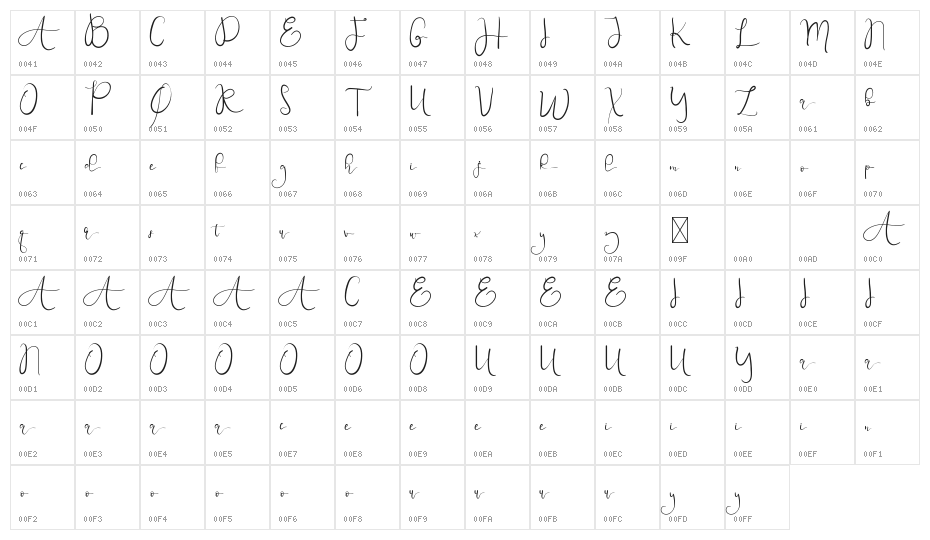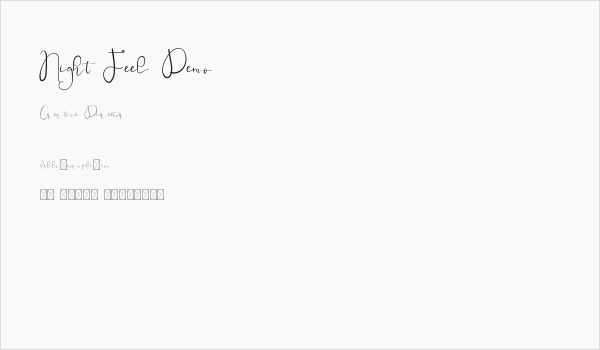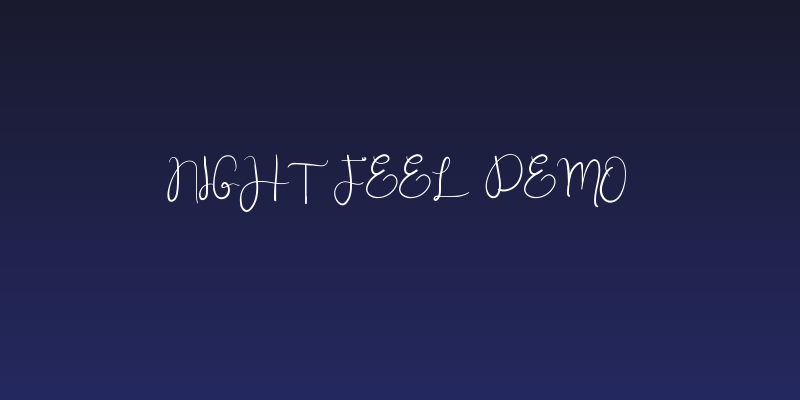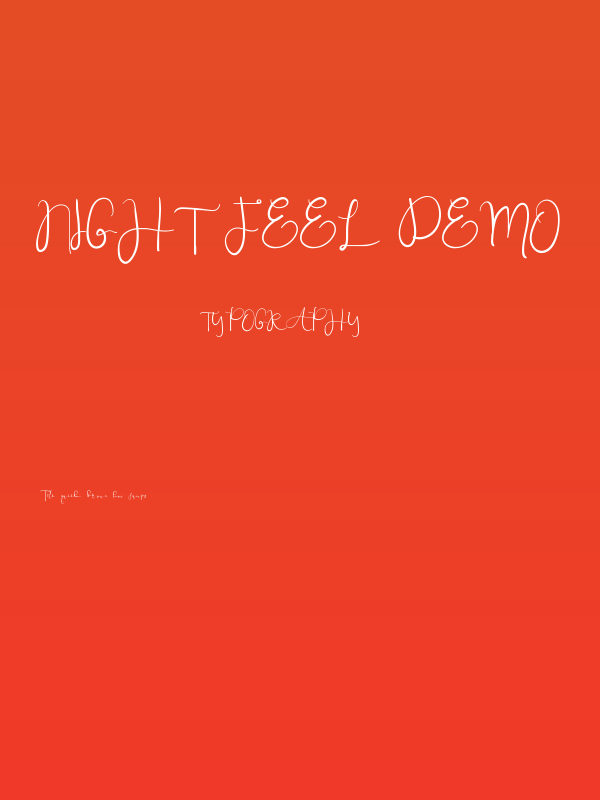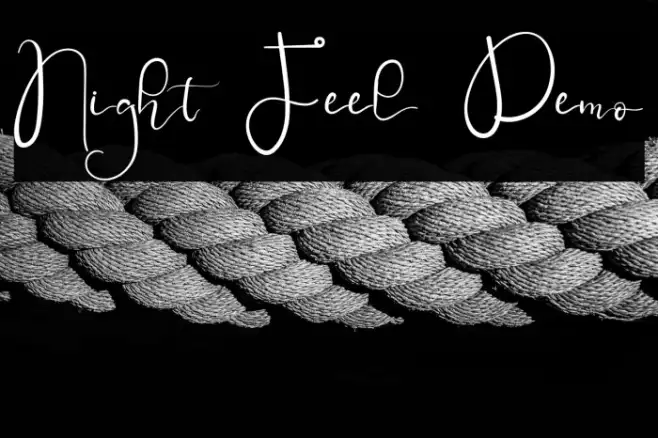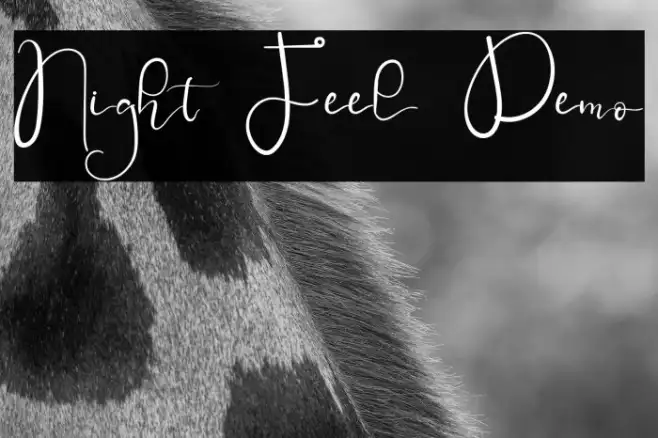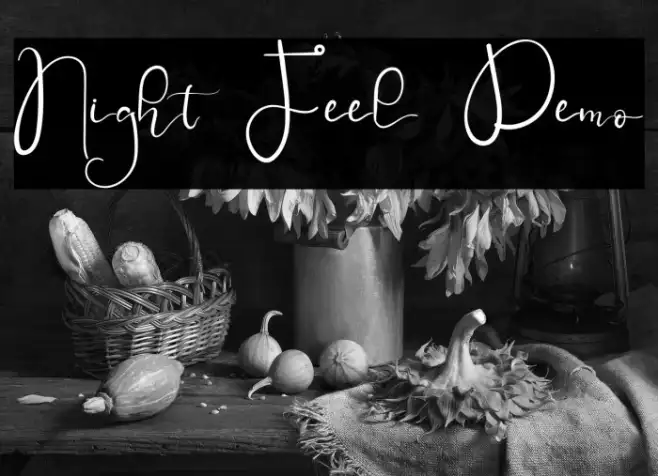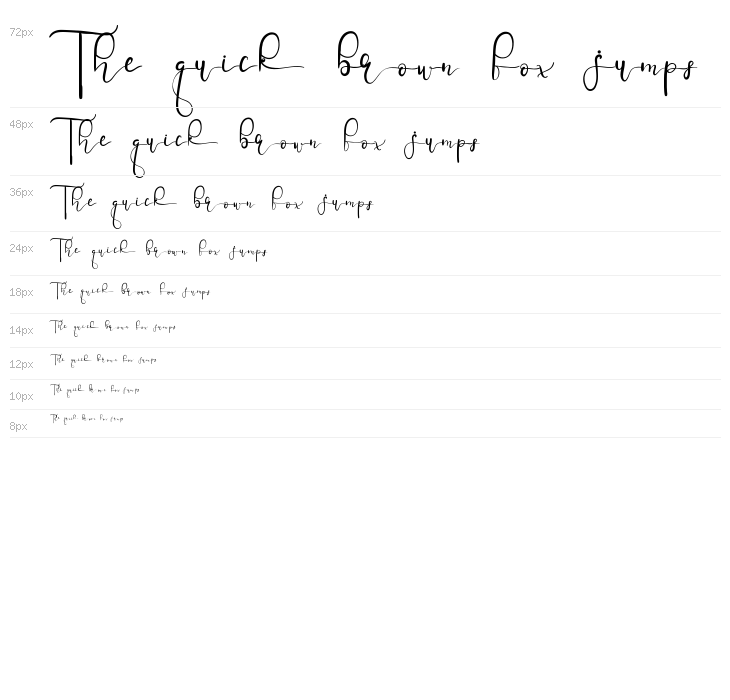
Night Feel Demo Font
Night Feel Demo Description
This font features an elegant and flowing script style, characterized by its cursive, handwritten appearance. The letters are connected with smooth, sweeping strokes that give it a fluid and graceful look. The uppercase letters are tall and slightly exaggerated, adding a touch of sophistication, while the lowercase letters maintain a consistent flow with delicate loops and curves. The overall design is airy and light, with a playful yet refined aesthetic. This font is perfect for adding a personal touch to any project, making it ideal for invitations, greeting cards, and branding materials.
| Use Case | Invitations, Greeting cards, Branding |
| Proposed Projects | Ideal for wedding invitations, greeting cards, personal branding, and elegant logos. |